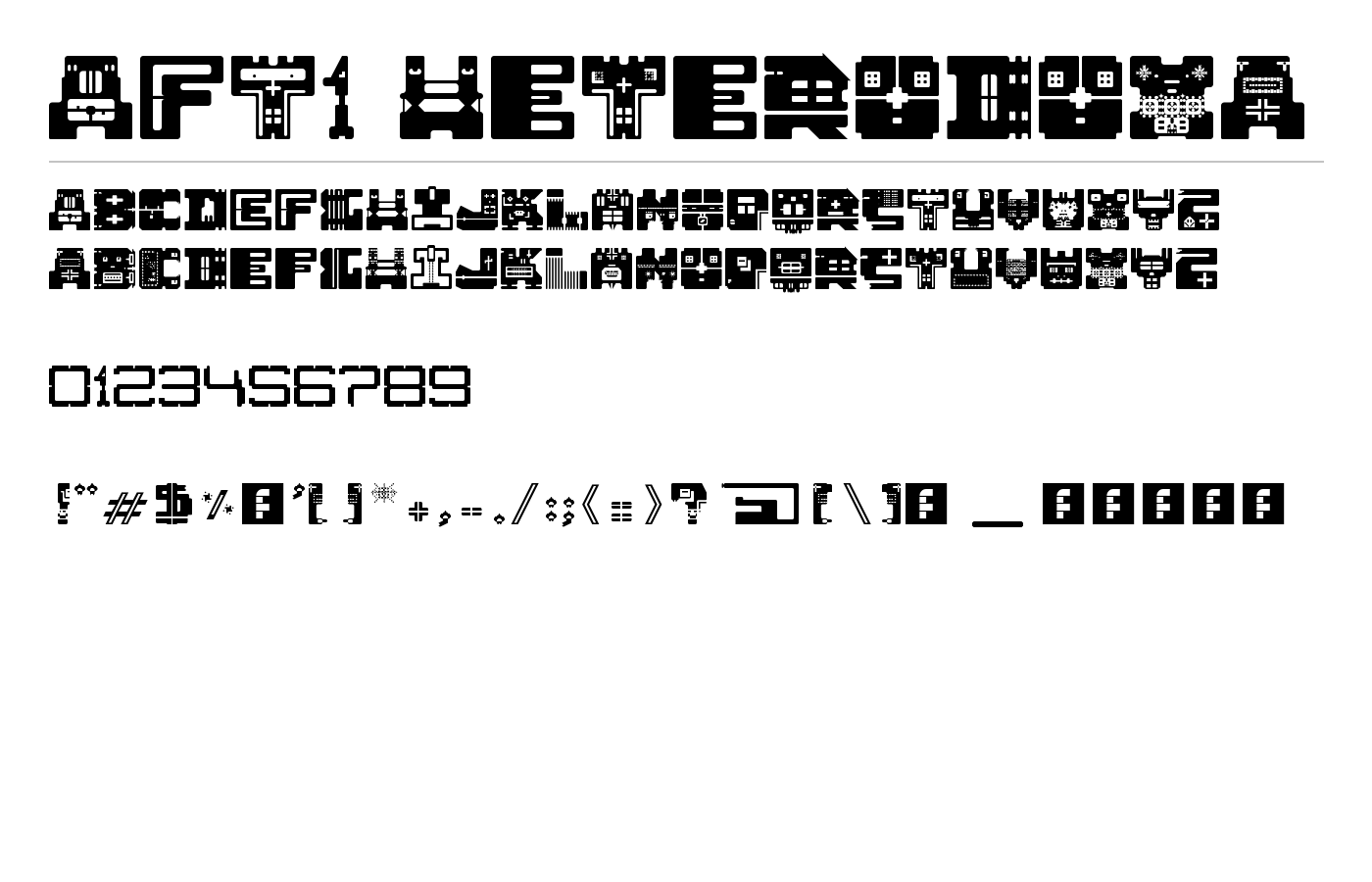
AFT1 Heterodoxa is a highly distinctive, decorative display font with a bold, blocky sans serif style featuring complex, ornamental patterns within each character. Its heavy weight, geometric shapes, and intricate details give it a futuristic and playful vibe, making it ideal for eye-catching headlines, logos, and creative projects that seek to stand out with a unique and unconventional look. This font works best when used at large sizes where its artistic complexity can be fully appreciated.
| Font family | AFT1 Heterodoxa Font |
| Designer | neurone error |